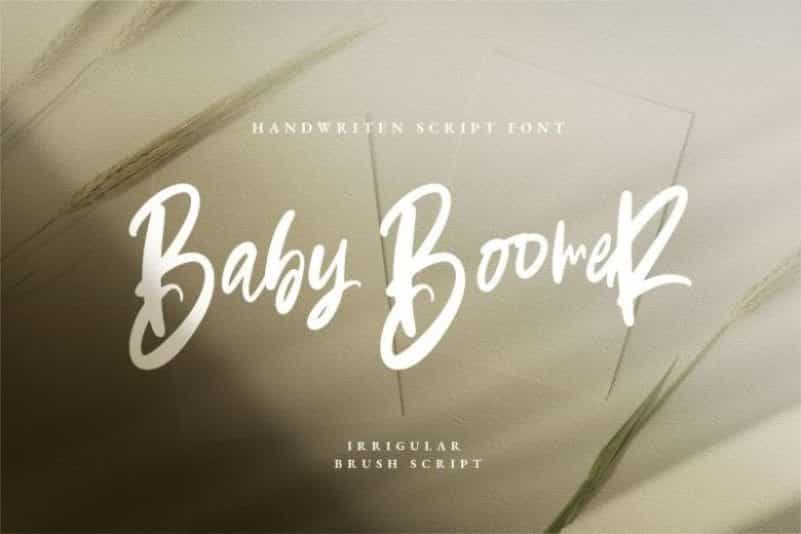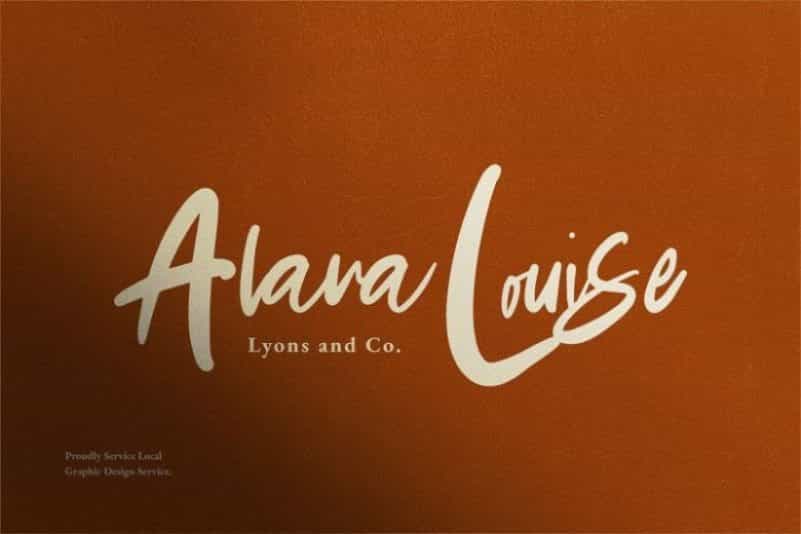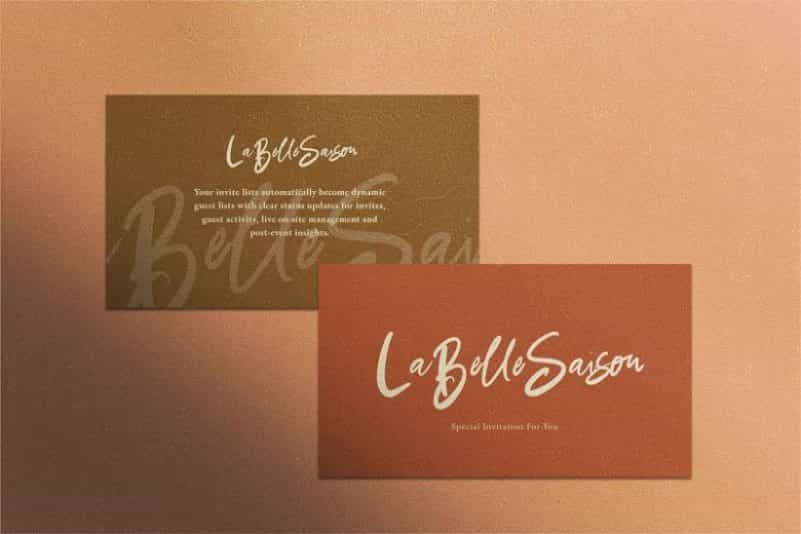
Baby Boomer Brush Script Font
Discover Baby Boomer Brush Script Font, part of the  Commercial Brush Calligraphy  Handwritten collection—a versatile and unique font perfect for adding a personal touch to your projects. Download it for free and enjoy crafting designs with style, from invitations to social media posts. This font is available exclusively for personal use, giving you the freedom to create without limits. Unlock your creativity with Baby Boomer Brush Script Font today!
Baby Boomer is a bold brush script font, with a modern calligraphy style featuring a dynamic baseline that adds flair to any design project. The invitation looks stunning like something you’d find on greeting cards, branding materials, business cards, quotes, posters and more!